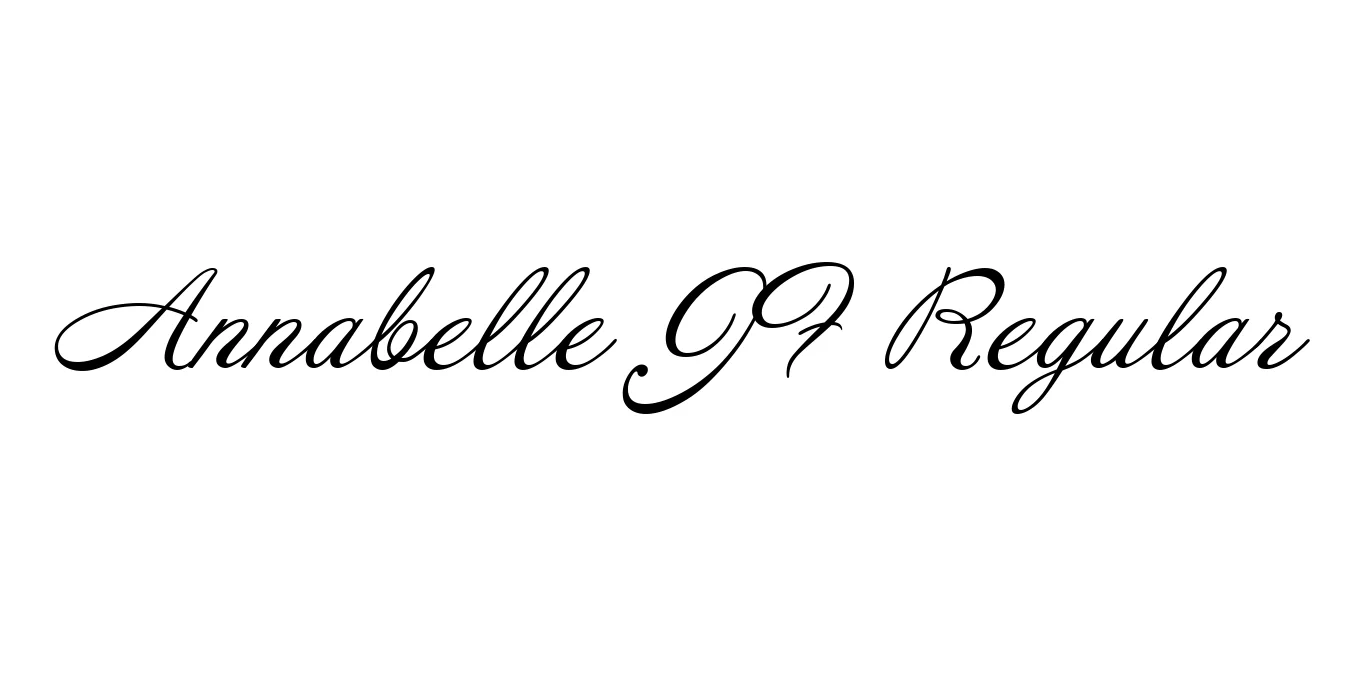
Annabelle JF Regular
Designed by Jason Walcott
| Font Name | Annabelle JF |
| Designer | Jason Walcott |
| Similar Fonts | Snell Roundhand, Edwardian Script, Bickham Script, Shelley Script |
Annabelle JF Regular is an exquisitely crafted formal script font that captures the timeless elegance of classic Spencerian calligraphy. Originally based on designs by George Williams and later refined and digitized by Jason Walcott for Jukebox Fonts, this typeface features sweeping flourishes and high-contrast strokes that evoke a sense of high-end sophistication. Its delicate connections and rhythmic flow make it a standout choice for projects requiring a touch of traditional grace and historical accuracy.
Throughout its history, Annabelle JF has become a staple for designers looking to convey luxury and prestige. The font balances traditional aesthetic values with digital precision, ensuring that while it appears hand-drawn and ornate, it maintains excellent performance in modern print and screen layouts. As part of the Jukebox collection, it represents a dedicated effort to preserve the beauty of 19th-century script styles for contemporary creative use.